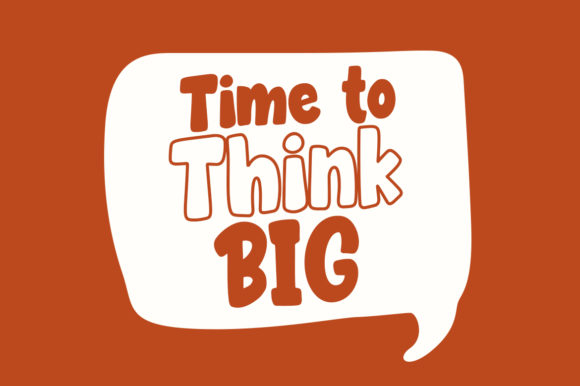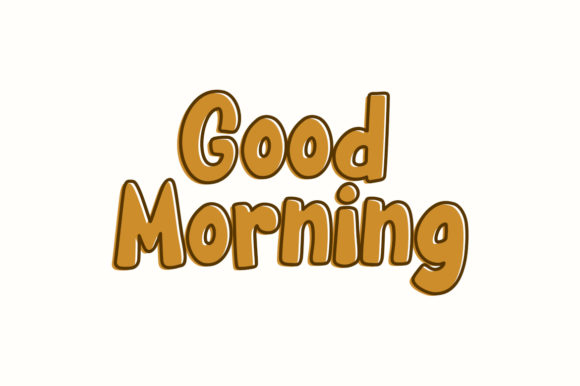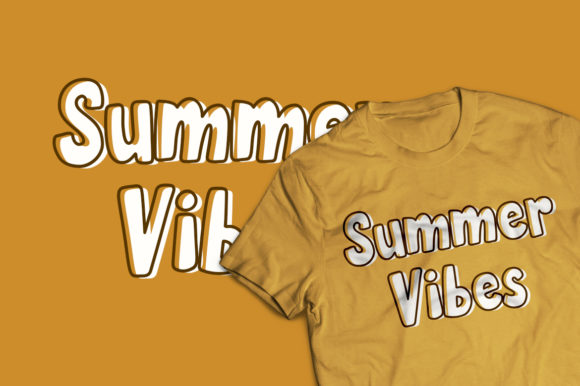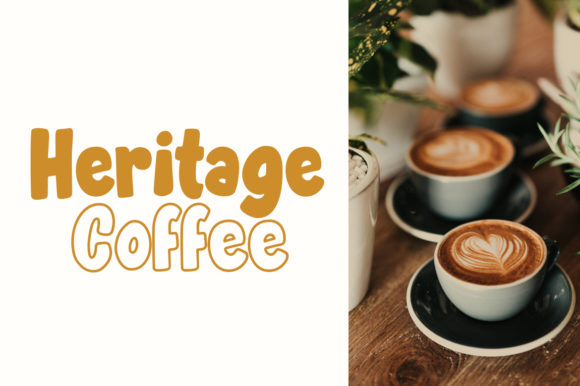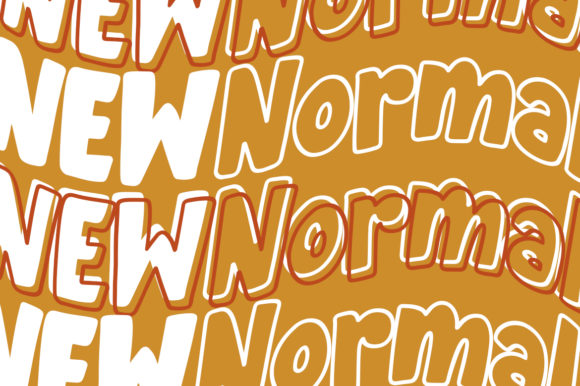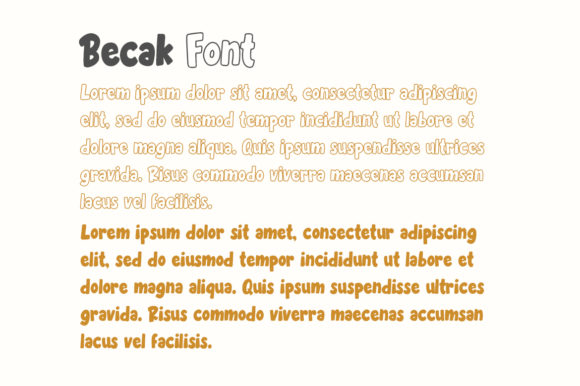
Becak Font: Bringing a Touch of Authenticity to Your Designs
You know that moment when you’re brainstorming ideas for a new project, and suddenly, a spark of creativity hits you? It’s like a rush of adrenaline that propels you forward, and you can’t wait to bring your vision to life. For designers, this moment is all too familiar, and it’s what drives us to create something truly unique and captivating.
That’s where the Becak Font comes in – a bold, authentic display font that’s perfect for adding a touch of quirkiness to your designs. Its chunky characters are both playful and eye-catching, making it an excellent choice for a wide range of projects, from branding to advertising and beyond.
As a designer, you’re always on the lookout for fonts that can elevate your work and make it stand out. The Becak Font is a valuable addition to your toolkit, offering a refreshing take on traditional typography that’s sure to inspire your next creative project.
- Unique Characteristics: Becak Font is known for its unique and distinctive letterforms, inspired by the traditional Becak vehicles of Indonesia.
Becak Font Review
Becak Font is a bold and elegant display font that has some great features. ✨ It’s ideal for creating eye-catching headlines, and its unique design makes it perfect for creative projects. The font has a strong personality and can add a touch of sophistication to any design.
- Unique design: Becak Font has a distinctive look that can make your design stand out.
- Perfect for display use: This font is ideal for headlines, titles, and other display text.
- High-quality: The font is well-crafted and looks great at various sizes.
However, there are some limitations to consider. ⚠️ Becak Font may not be the best choice for body text or long blocks of text, as it can be difficult to read at smaller sizes. Additionally, the font may not be suitable for projects that require a more formal or traditional look.
I think Becak Font is a great addition to any designer’s toolkit. While it may have some limitations, its unique design and high-quality make it a great choice for creative projects. With some careful consideration of its use, Becak Font can add a touch of elegance and sophistication to any design.
Tips for Getting the Most Out of Becak Font
Use Becak Font for creative and artistic designs, such as posters, flyers, and brochures.
Pair Becak Font with other unique fonts to create a visually appealing design.
Experiment with different font sizes and styles to create a bold and eye-catching design.
Becak Font is commonly used for:
1. Creative and artistic designs
2. Posters and flyers
3. Brochures and catalogs
4. Social media graphics